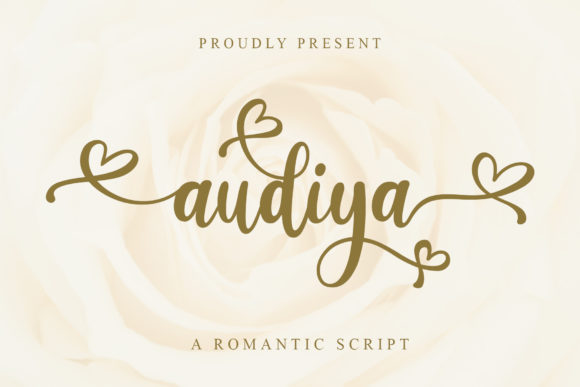
The Magic of Audiya Font: Elevate Your Designs with Charming Script
I’ll never forget the time I was working on a whimsical wedding invitation project, and my client asked for a font that would make their guests feel like they’re stepping into a fairytale. I scoured the internet, tried out countless fonts, but nothing seemed quite right. That was until I stumbled upon Audiya Font. With its charming, playful characters that seem to dance along the baseline, it was love at first sight! ✨ In this article, I’ll share with you why Audiya Font has become a staple in my design toolkit and how you can make the most of its beautiful features.
A Honest Review of Audiya Font
• ✨ Playful and charming characters: Audiya Font has a unique ability to add a touch of whimsy to any design project.
• 💃 Perfect for creative projects: Whether you’re working on a wedding invitation, a craft project, or a social media graphic, Audiya Font is sure to make your design stand out.
While Audiya Font is a stunning script font, there are a few things to keep in mind: ⚠️
• 🤔 Legibility at small sizes: Like many script fonts, Audiya can be a bit tricky to read at very small sizes. Make sure to test it out at different sizes to ensure it’s legible for your project.
• ⚠️ Pairing with other fonts: As with any script font, it’s essential to pair Audiya with a complementary font to avoid visual overload. Experiment with different font combinations to find the perfect match.
The Backstory of Audiya Font
While I couldn’t find any information on the exact origins of Audiya Font, I like to imagine that it was created by a team of designers who wanted to craft a font that would bring joy and whimsy to creative projects. Perhaps they drew inspiration from traditional calligraphy, modern typography, and a dash of playfulness. Whatever the story, Audiya Font has undoubtedly become a beloved font among designers and crafters alike.
Q: Can I pair Audiya Font with other fonts?
A: Absolutely! Pairing Audiya Font with complementary fonts can create stunning visual effects. Experiment with different font combinations to find the perfect match for your project.